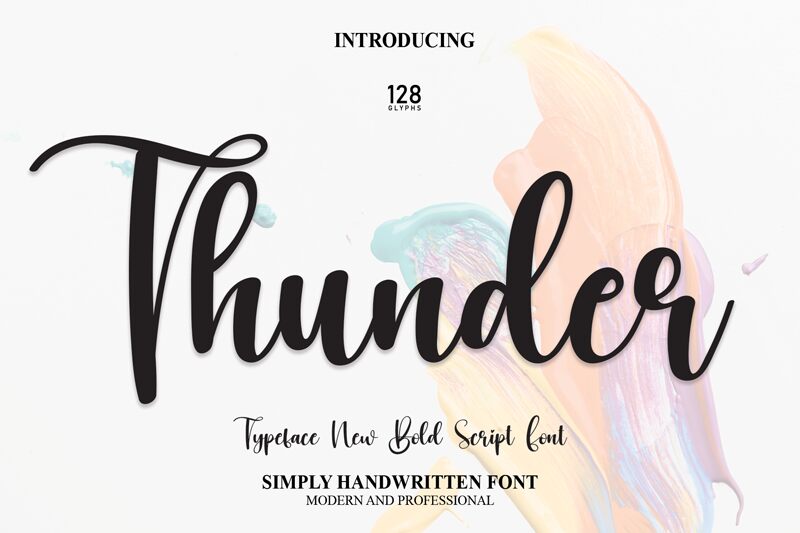
Thunder
Thunder, designed by Scratchones, is a calligraphy font that strikes with an elegant blend of classic and contemporary styles. Its sweeping curves and fine lines evoke the time-honored tradition of handwritten script while delivering a modern flair that resonates with today's design sensibilities. The fluidity of Thunder's characters gives it a natural and organic feel, making it incredibly versatile for a wide array of creative projects. Whether you're crafting wedding invitations, branding materials, or eye-catching social media graphics, Thunder adds a touch of sophistication and personality that is sure to captivate your audience.
Embrace the artistic charm of Thunder in your next design endeavor for an impact as powerful as its namesake.